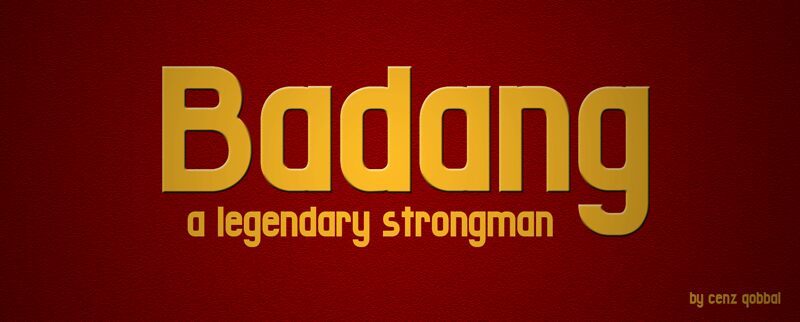
Badang Italic by Cenz Qobbal is a free heavy italic sans serif with a forceful, compressed silhouette. The steep slant and broad strokes make the lettering feel fast, and the rounded inner shapes keep it from looking purely mechanical. Its tightly fitted forms create a dense, nearly continuous band of type.
Speed, competition, and loud music are its clearest subjects, making it suited to motorsport posters, team merchandise, and album artwork. It best suits brands and events aimed at younger audiences.